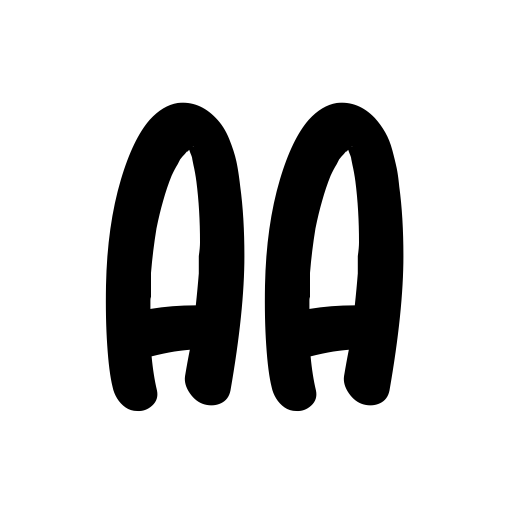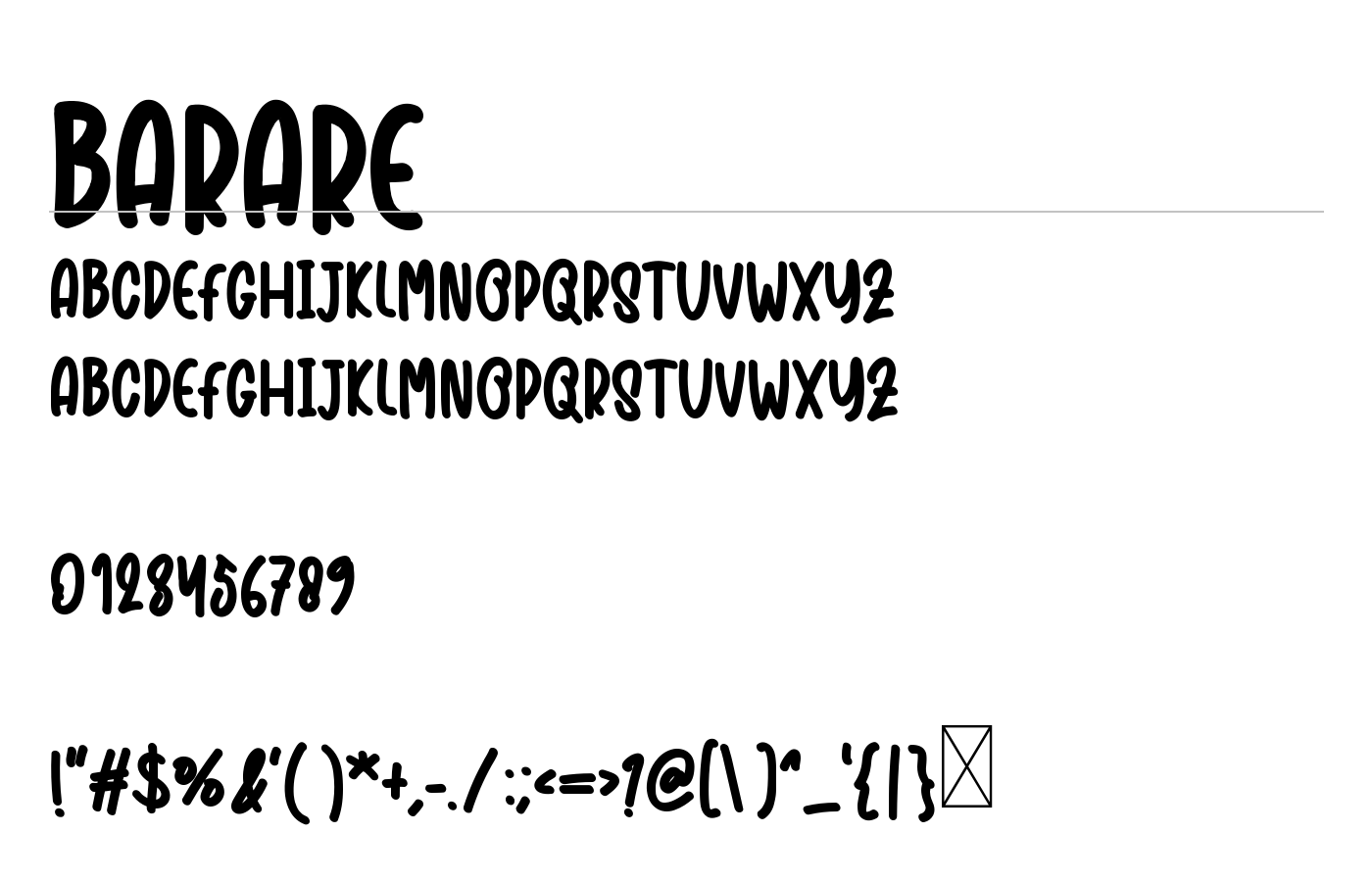
BARARE is a playful, casual sans serif font with rounded, slightly irregular shapes that give it a friendly, hand-drawn feel. Its medium weight and tall x-height make it highly legible and approachable, perfect for informal designs and youthful branding. This font works well for fun headlines, children's materials, and creative projects that want to convey warmth and personality.
BARARE Font